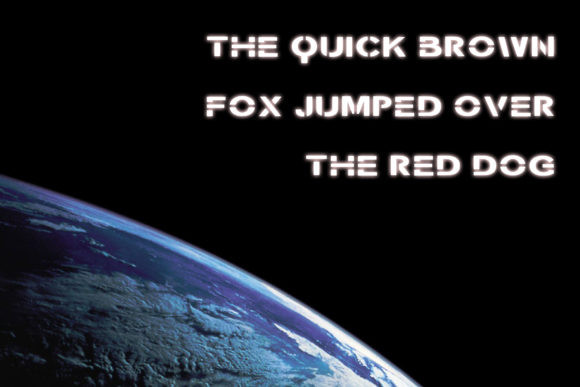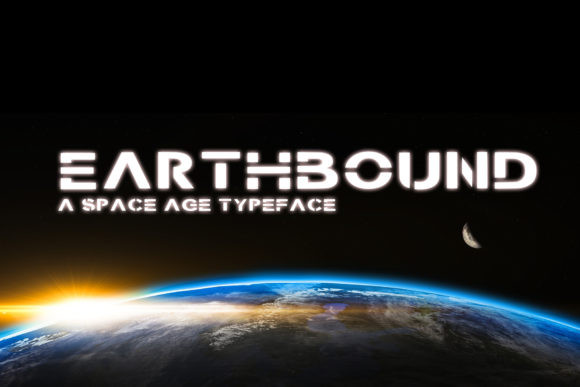
Earthbound Font
Earthbound is a unique and creative font that has been passionately handcrafted. Inspired by science, this font is perfect for your next project, especially if you want to give it a futuristic feel.